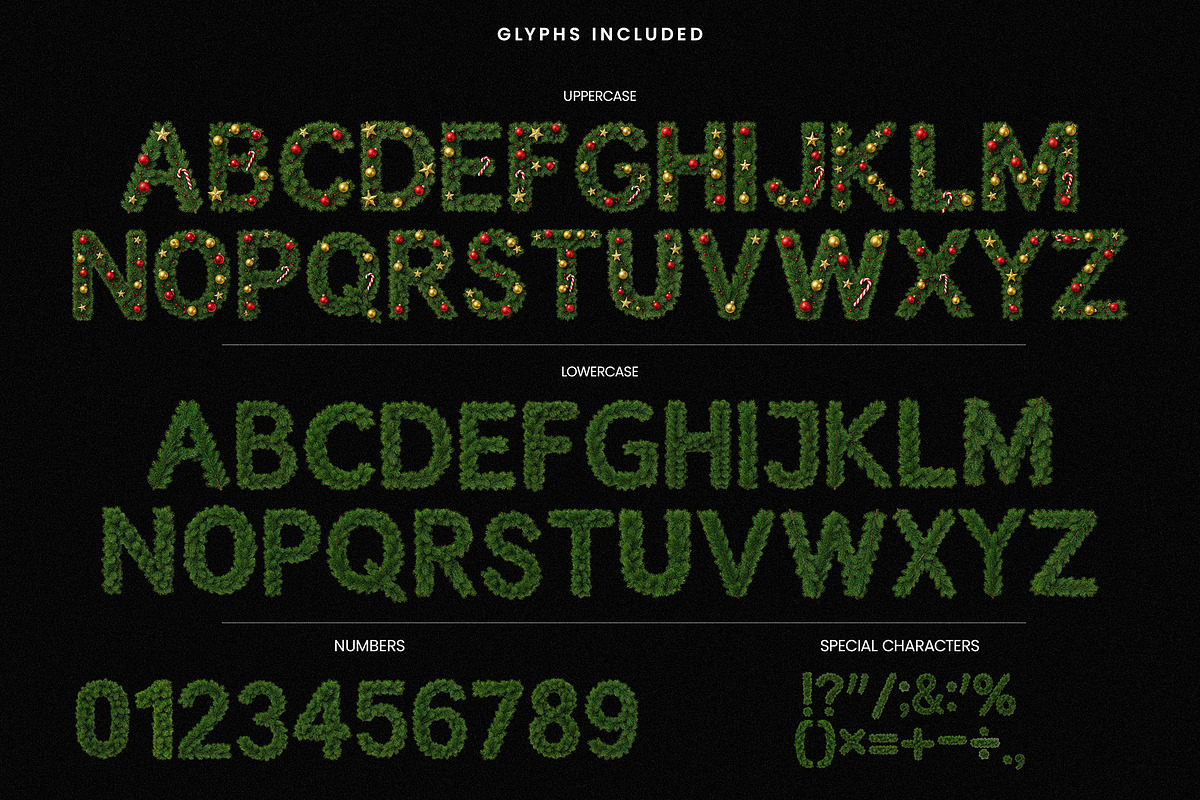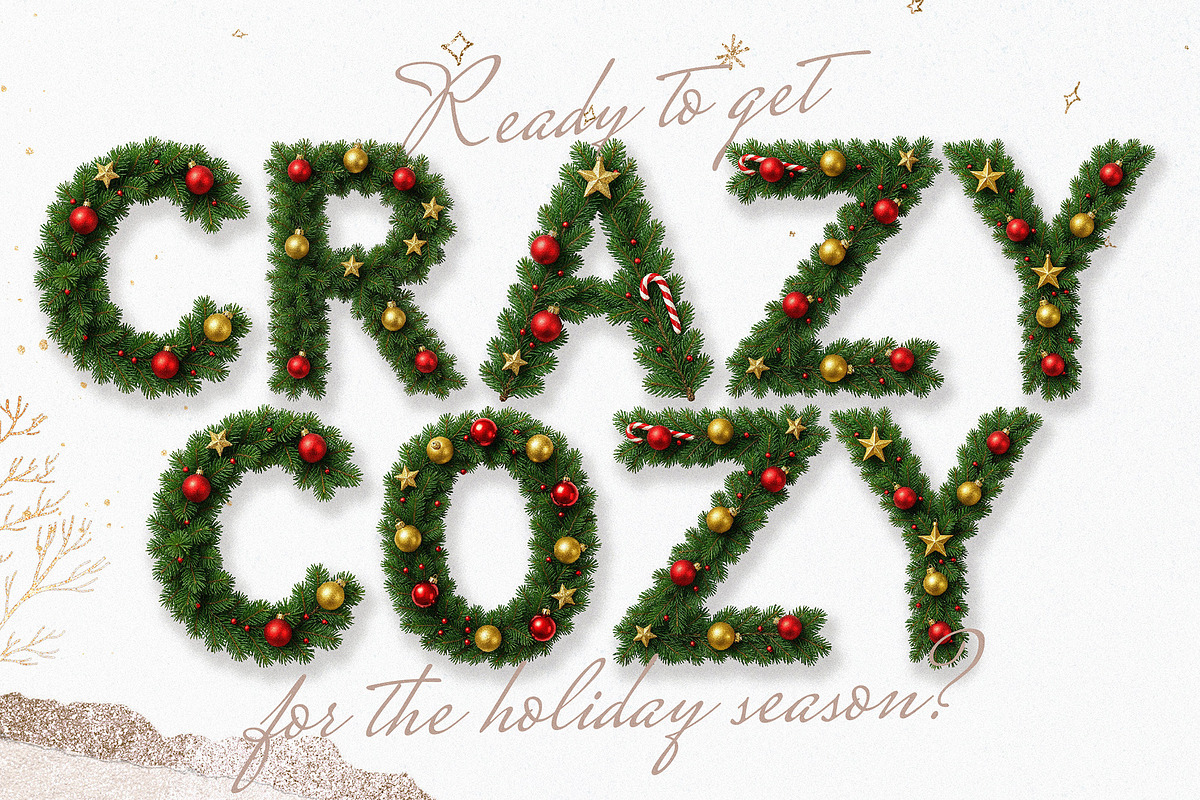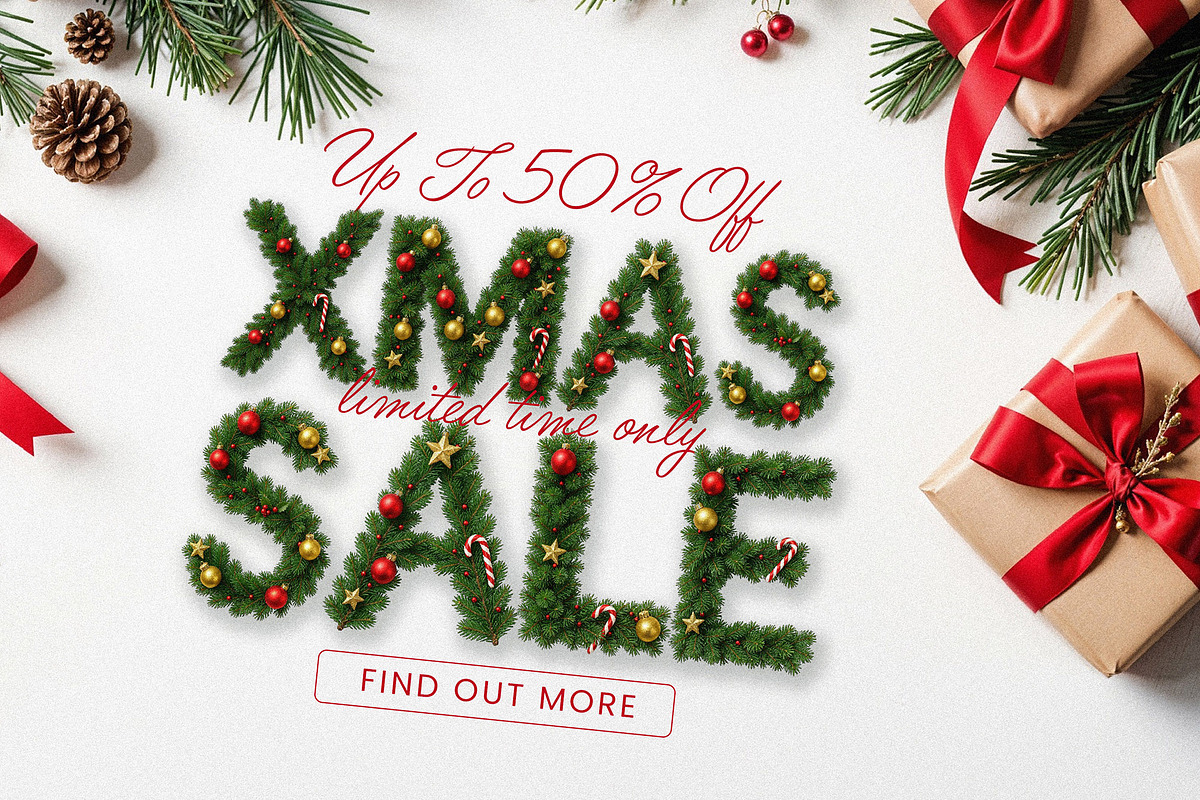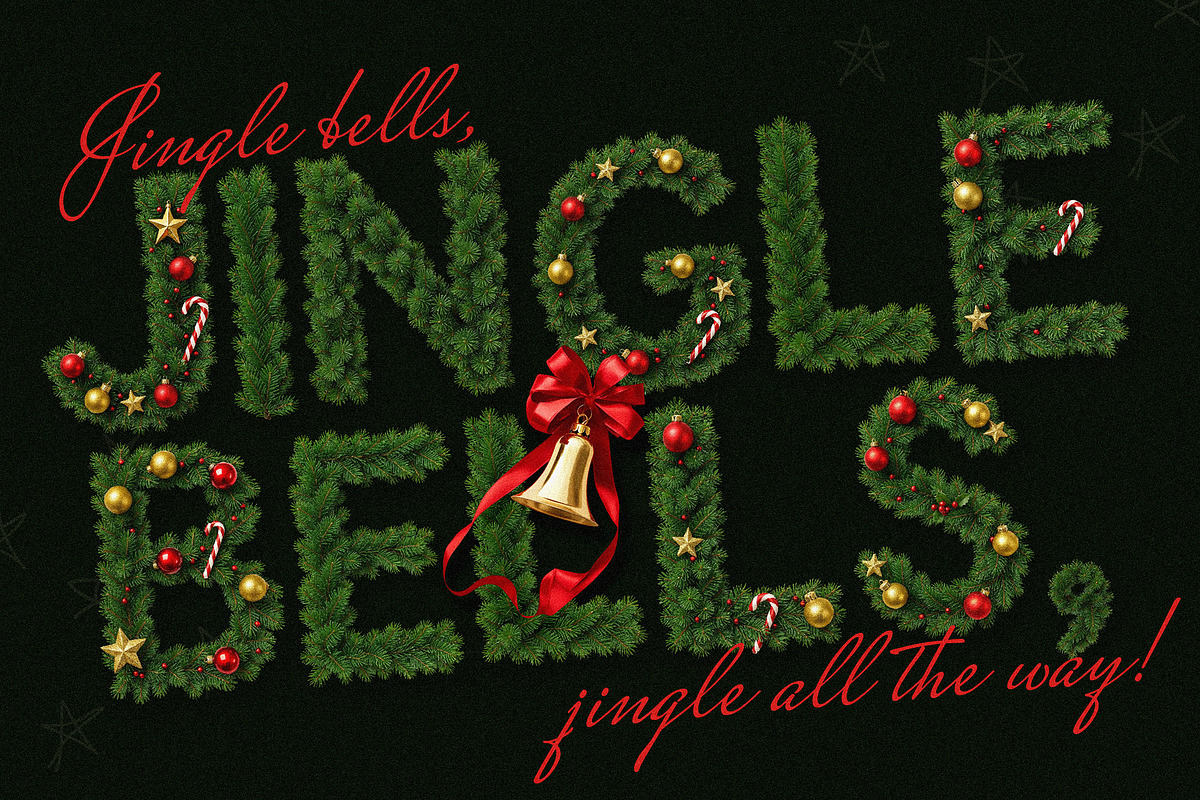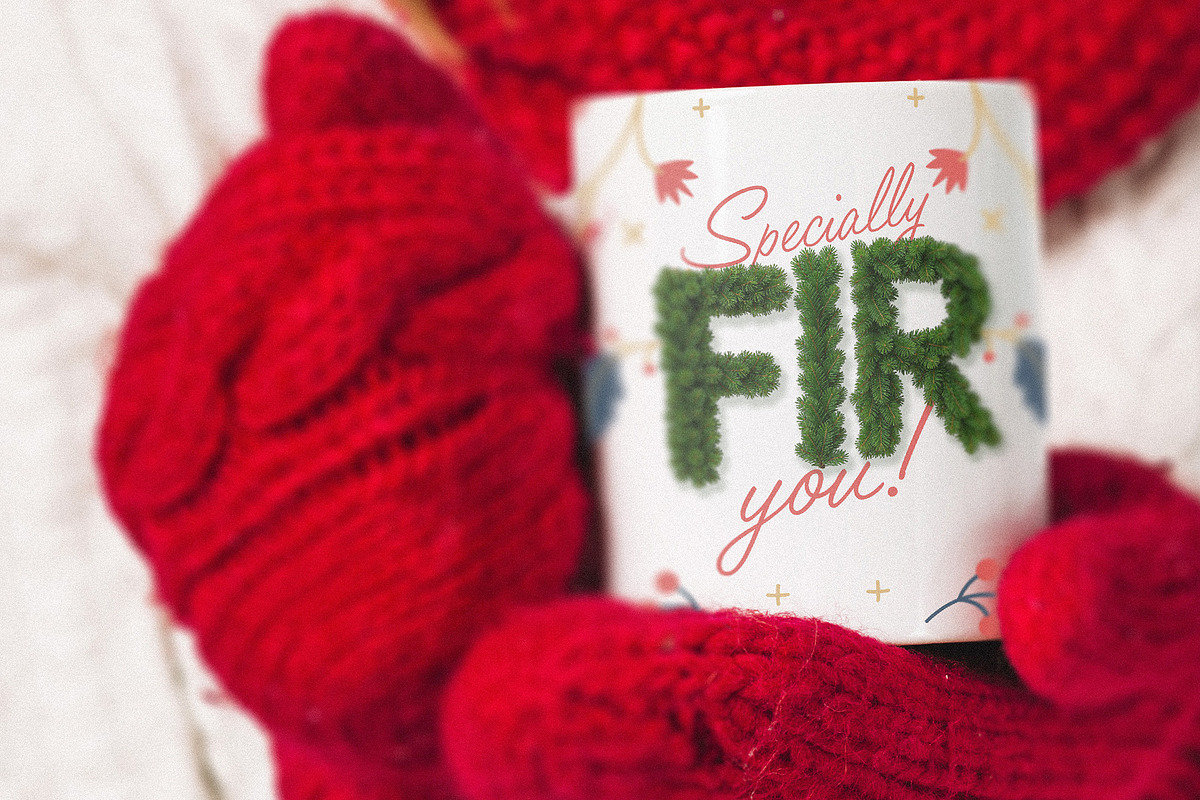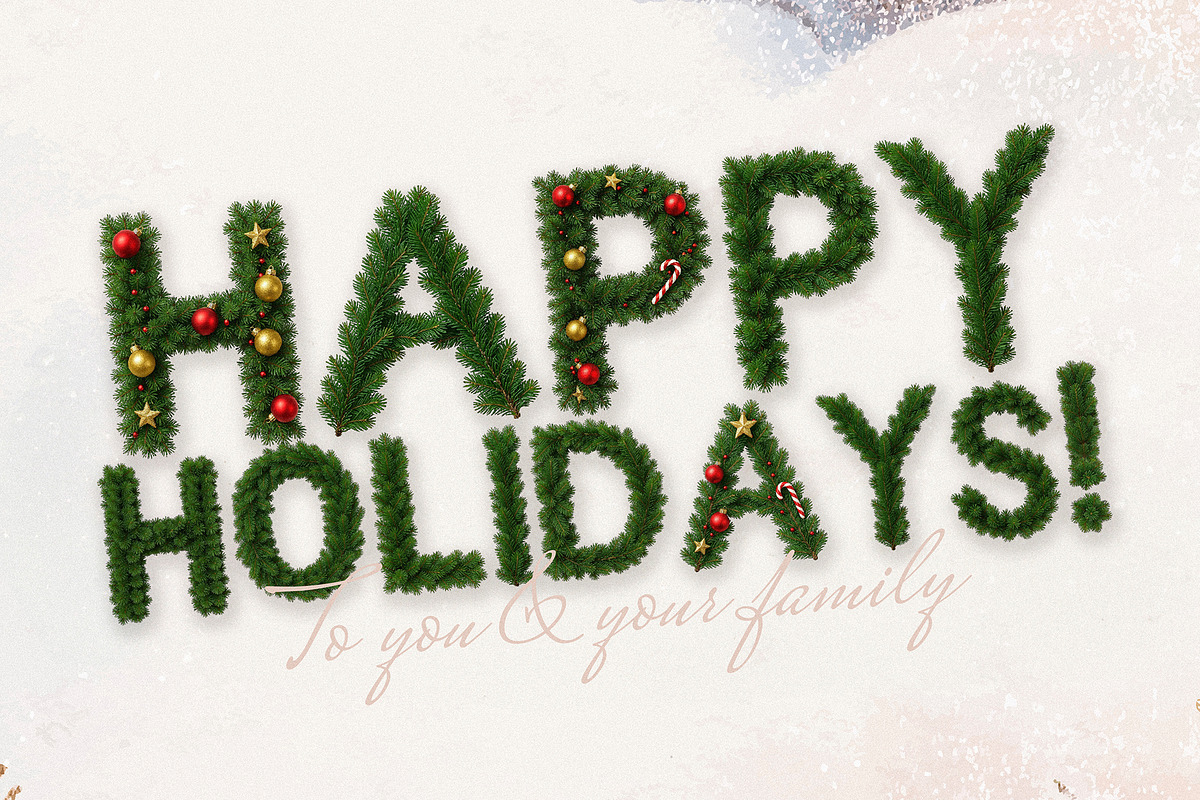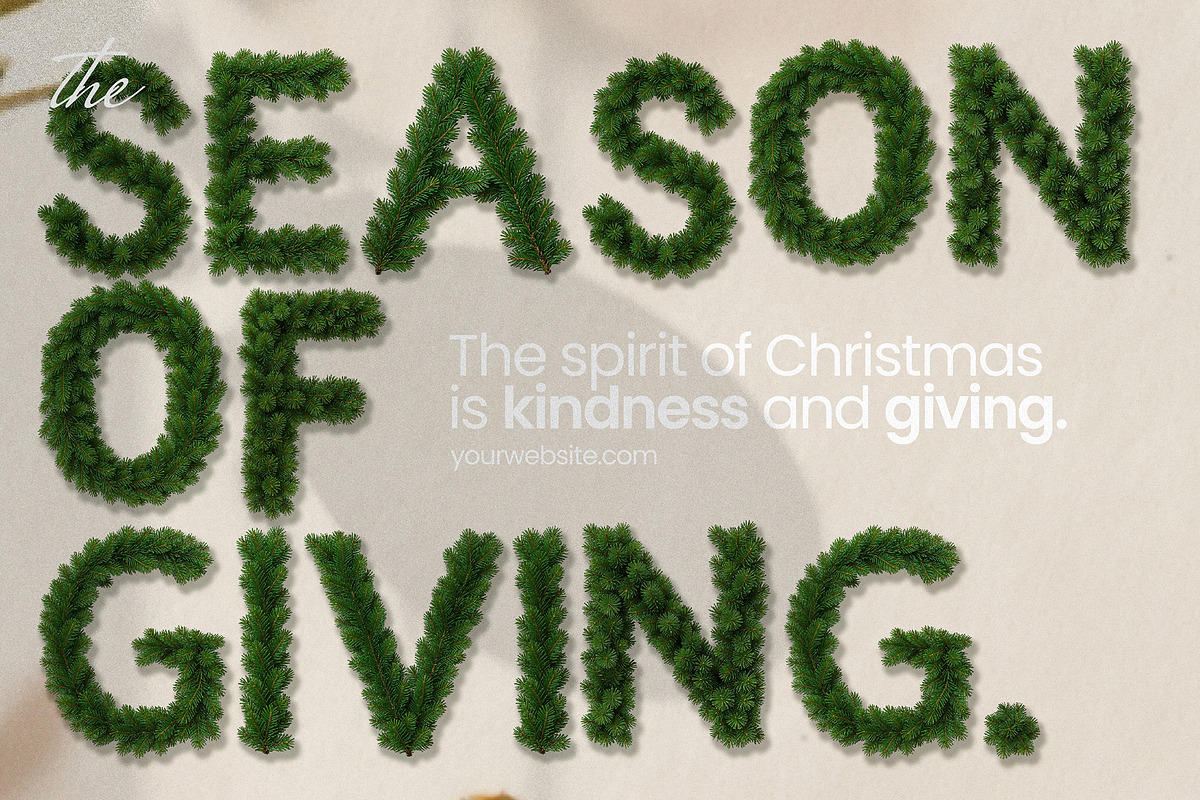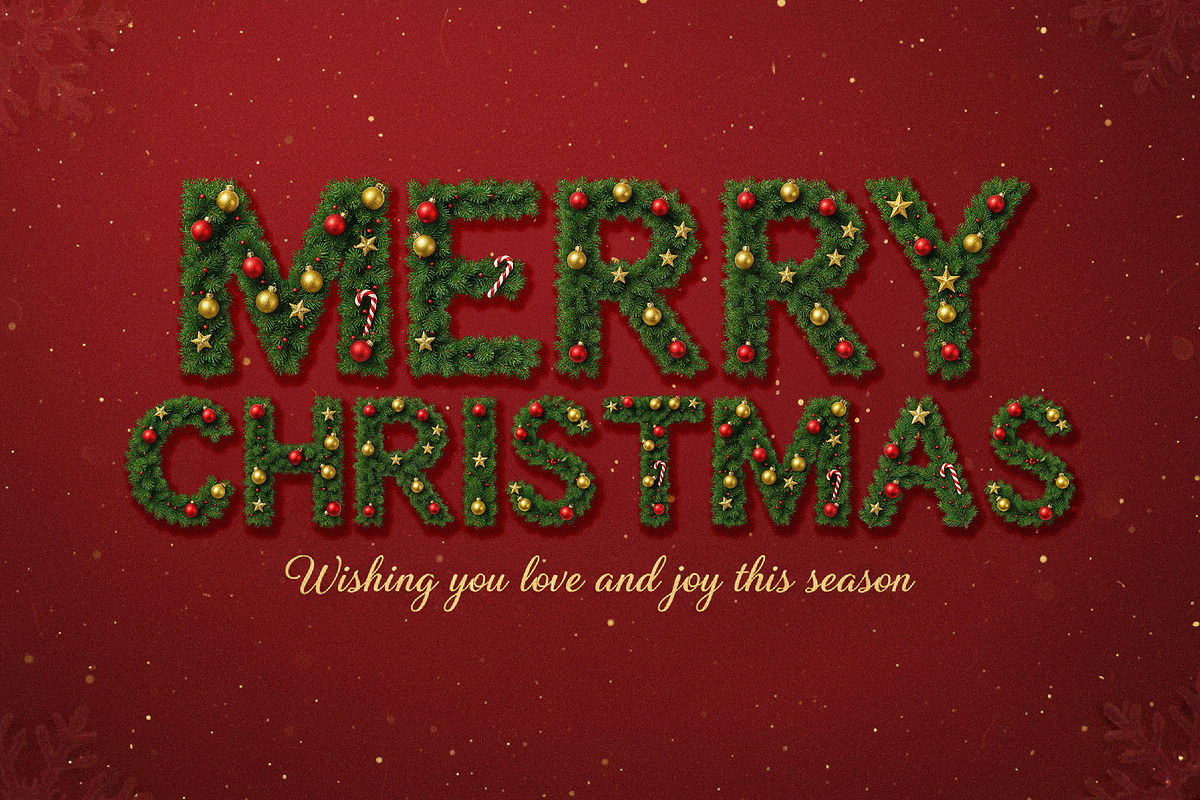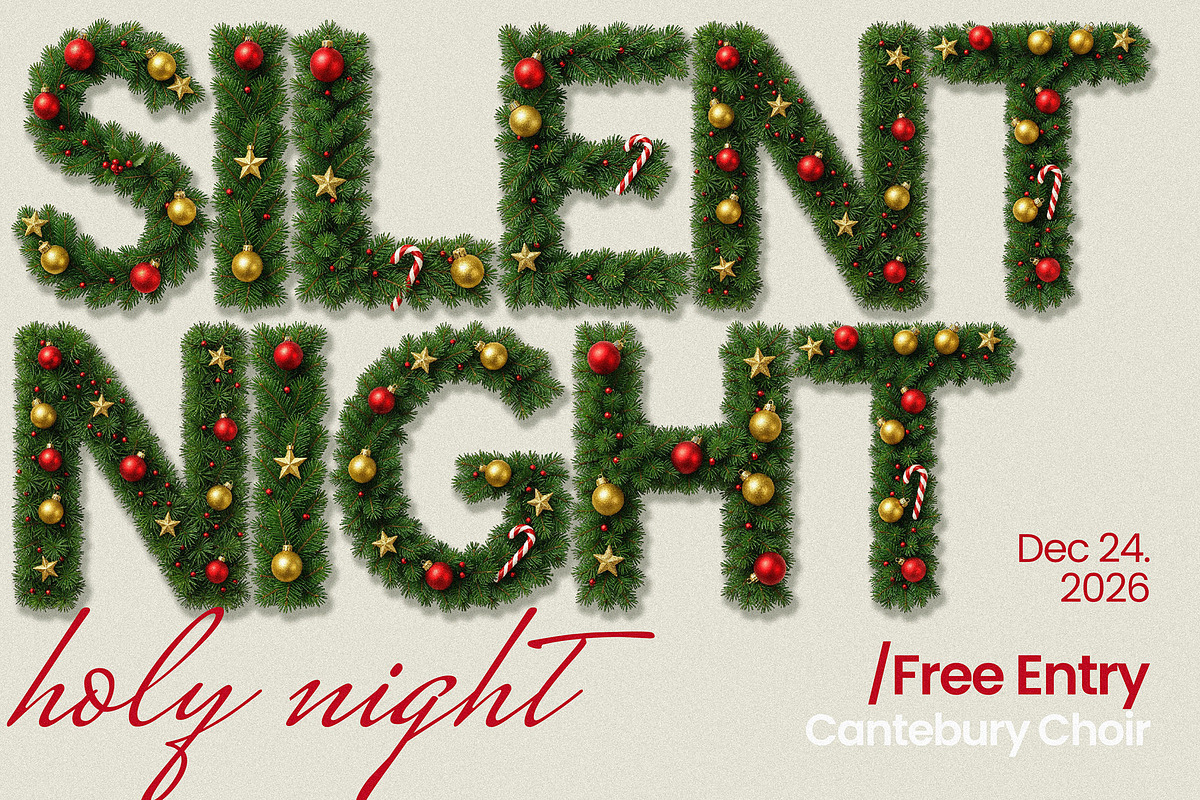
Xmas Joy - Christmas Holiday Font
Bring festive cheer to your designs with XMAS JOY, a bold and beautifully detailed Christmas bitmap font crafted entirely from lush fir branches, golden baubles, sparkling stars, and classic candy canes.
Meticulously designed for large-scale, high-impact visuals, this font is not for subtlety — it’s built to stand out. Perfect for headlines, posters, greeting cards, product packaging, and digital banners where your message deserves to shine with festive flair.
- Holiday greeting cards & invitations
- Christmas campaign posters & ads
- Seasonal product packaging
- Storefront signage or themed displays
- Social media banners and festive promo graphics
- Event branding, like “Santa’s Workshop,” “Winter Fair,” or “Christmas Market” titles